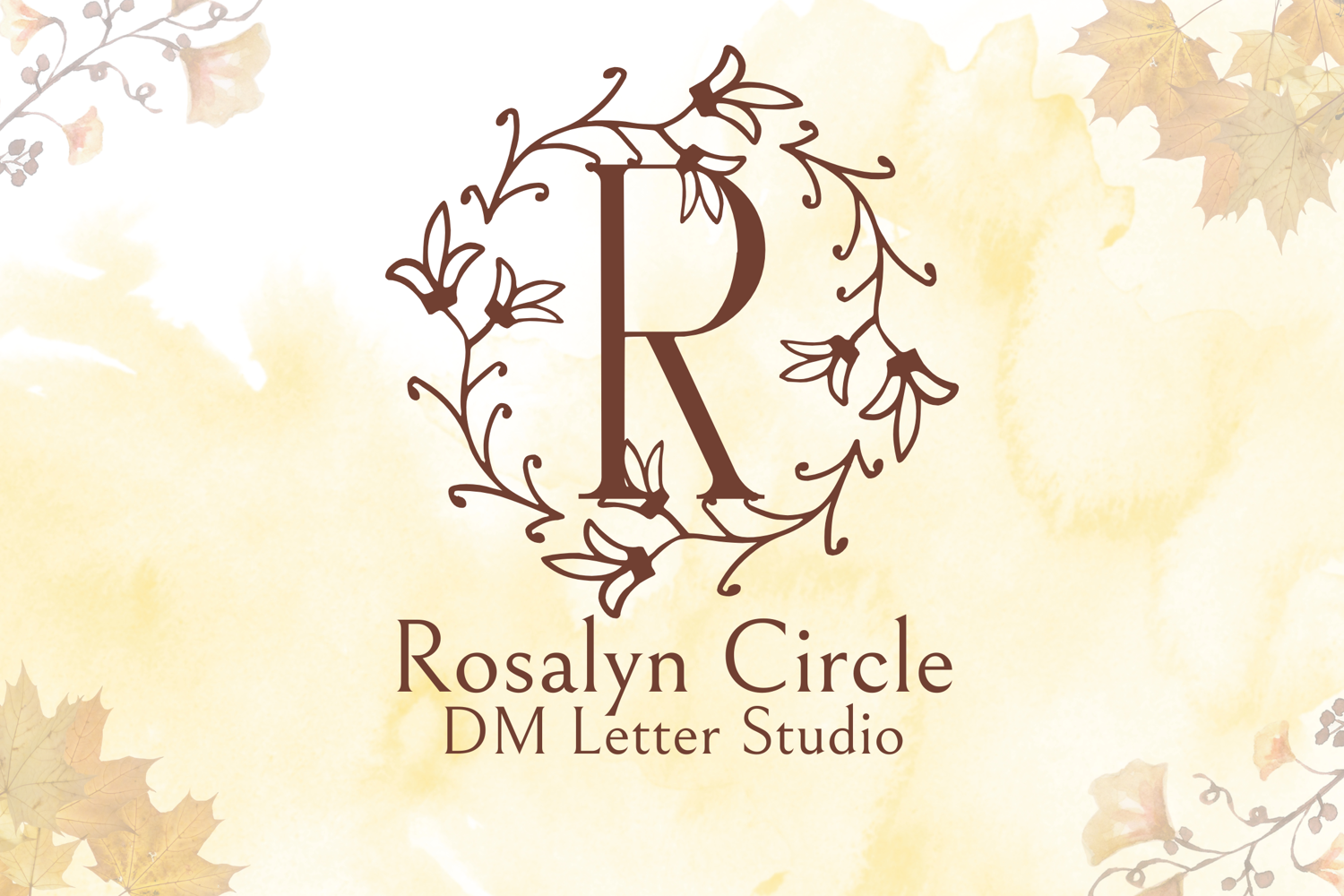
Rosalyn Circle Monogram - Elegant Serif Monogram
Rosalyn Circle Monogram
Rosalyn Circle Monogram – Elegant Serif Monogram in a Floral Circle Frame
Rosalyn Circle Monogram is a graceful serif monogram font enclosed within a delicate circular floral frame. Inspired by timeless elegance and soft botanical themes, each uppercase letter is placed inside a refined wreath of roses and foliage, making it the perfect choice for wedding monograms, luxury branding, and customized gifts.
• Circular Floral Frame: Each letter sits beautifully inside a hand-drawn rose wreath.
• Refined Serif Style: Classic serif letterforms provide structure and timeless sophistication.
• Romantic & Versatile: Ideal for feminine logos, wedding designs, and upscale stationery.
• Ideal For: Wedding monograms, floral logo design, Cricut monogram projects, elegant packaging, and romantic branding.